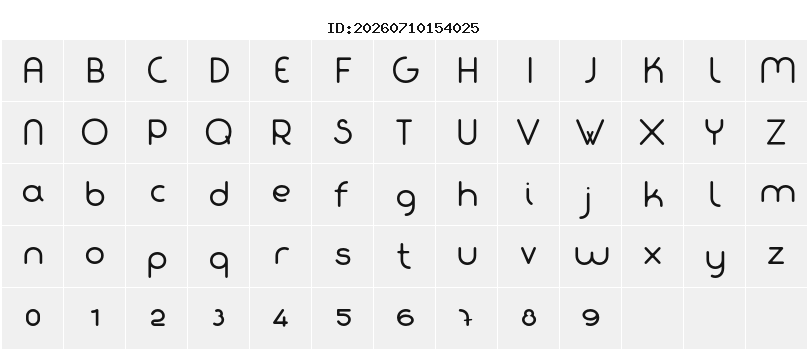
Fabada Preview
• Font Name: Fabada
• Font ID: deFharo.com: Fabada: 2011
• Full Font Name: Fabada
• Version: Version 4.000 2011 initial release
• PostScript Name: Fabada
• Character Count: 592
• Designer: deFharo
• Manufacturer: deFharo.com
About Fabada.otf
Fabada.otf is a modern, elegant sans-serif font designed for ultimate readability and visual harmony. Perfect for branding, headlines, web design, and print materials.